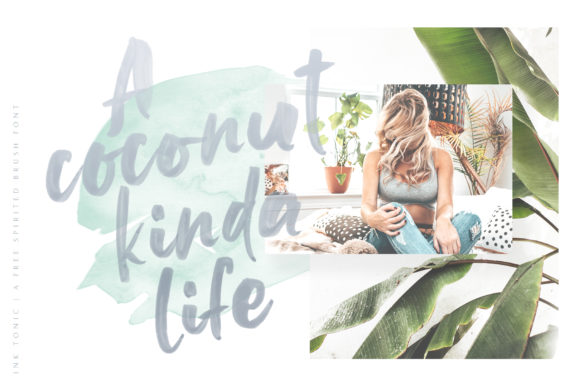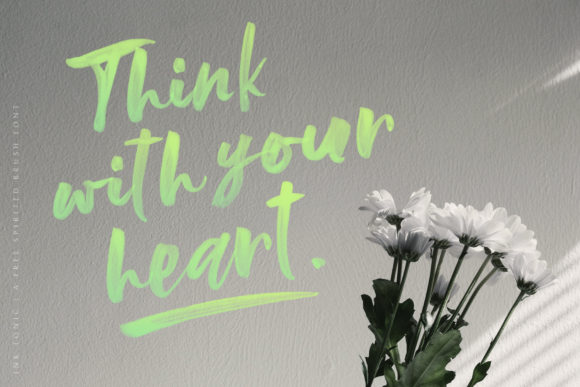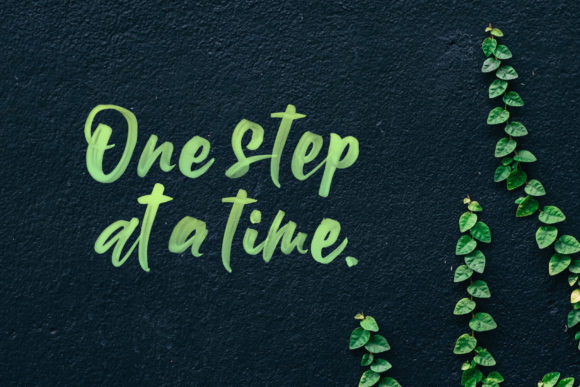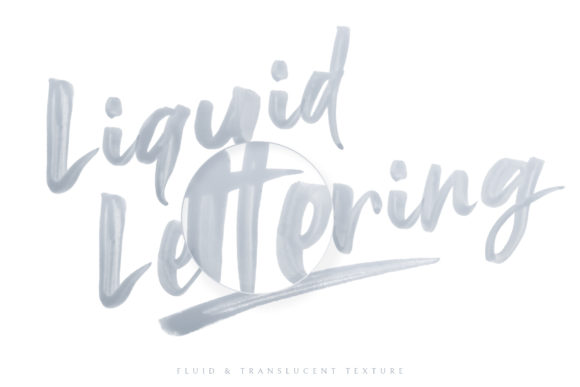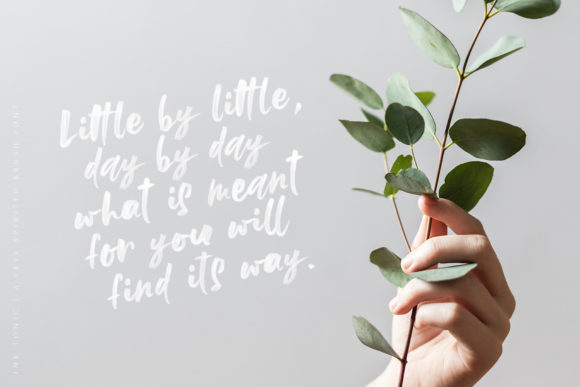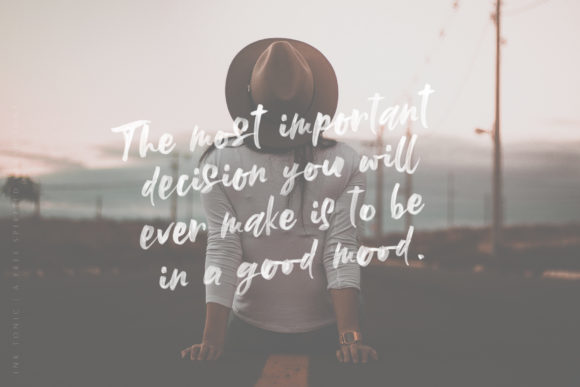
Introduction to Ink Tonic Font Font
Fonts play a crucial role in design, and the Ink Tonic Font font is a typeface that brings both character and versatility to any project. Whether you’re working on a branding project, a website, or a print design, the Ink Tonic Font font offers a unique style that can elevate your work.
Ink Tonic is a lovely, flowing handwritten font, designed with the help of a sweet brush pen.
Fall in love with its incredibly versatile style and use it to create gorgeous wedding invitations, beautiful stationary art, eye-catching social media posts, and much more .
Key Features of Ink Tonic Font Font
Why Choose Ink Tonic Font Font?
The Ink Tonic Font font is more than just a typeface – it’s a design tool that helps you communicate your message with style and clarity. Its unique character set and versatile design make it suitable for a wide range of applications, from elegant invitations to bold headlines.
With its carefully crafted letterforms and balanced proportions, the Ink Tonic Font font ensures readability and visual appeal across all mediums.
What makes Ink Tonic Font font special?
The Ink Tonic Font font stands out with its unique design, exceptional readability, and versatility across various design applications.